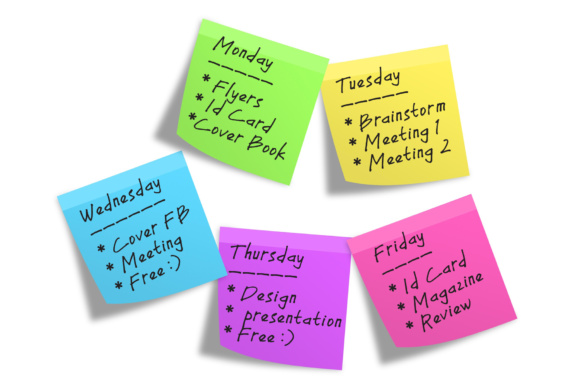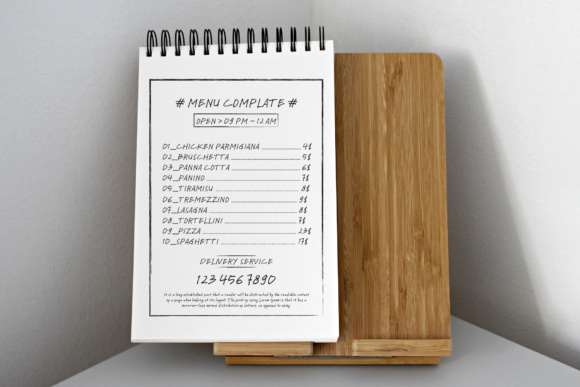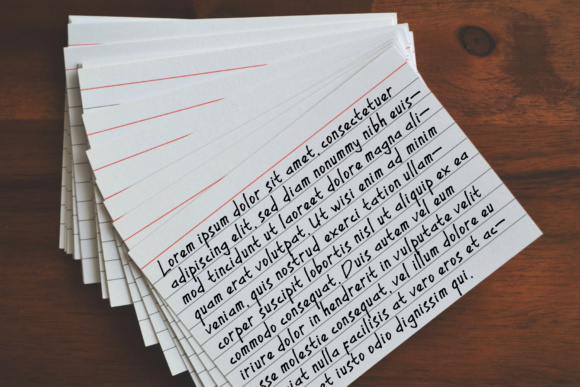
My Notes Font
About My Notes Font
My Notes is a handwritten font in uppercase and lowercase. The characters are drawn by hand to give them a warm and authentic look.